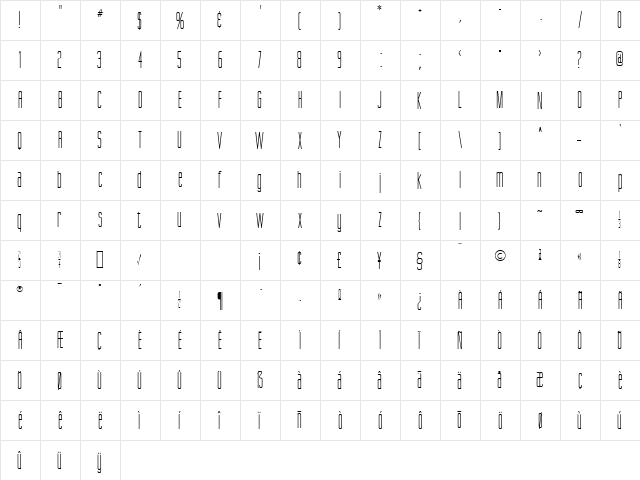
Scottsdale Regular
Design Context for Scottsdale Typeface
Scottsdale offers clean, dependable letterforms without strong stylistic allegiance, making it a practical choice for designers who need flexibility.